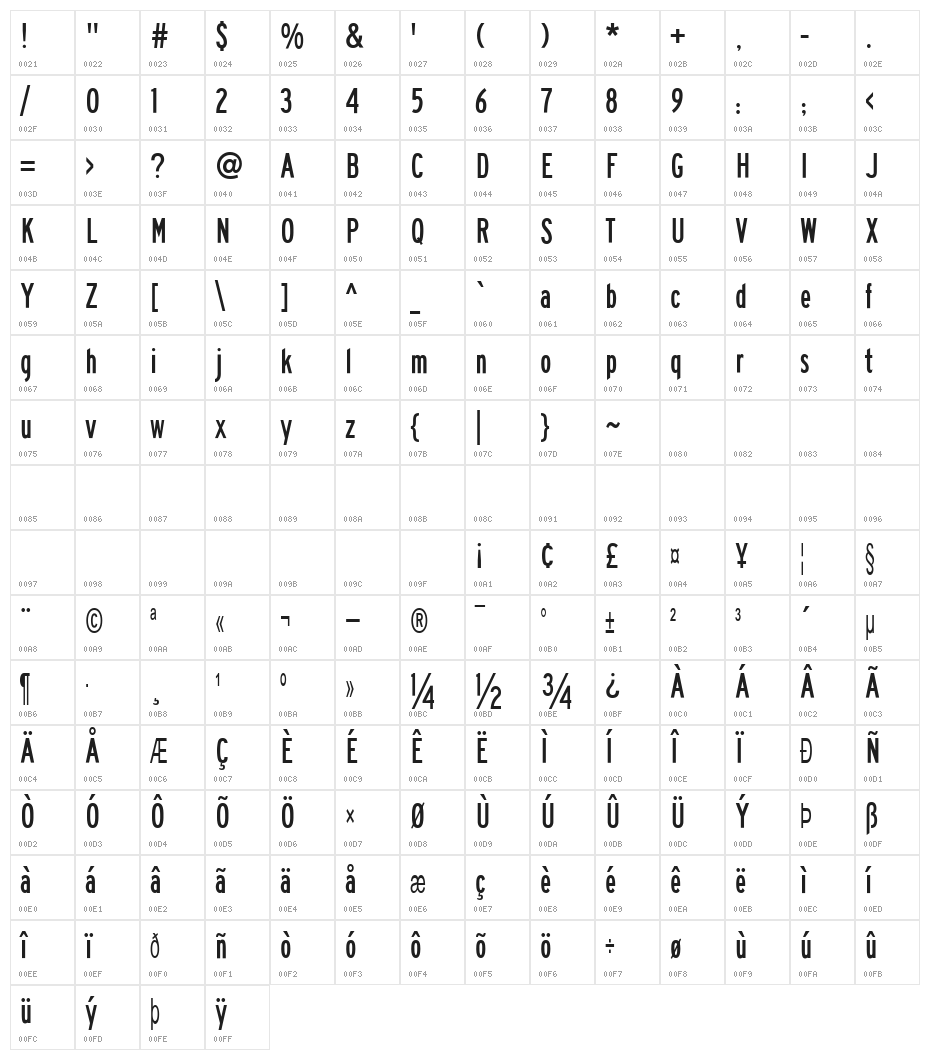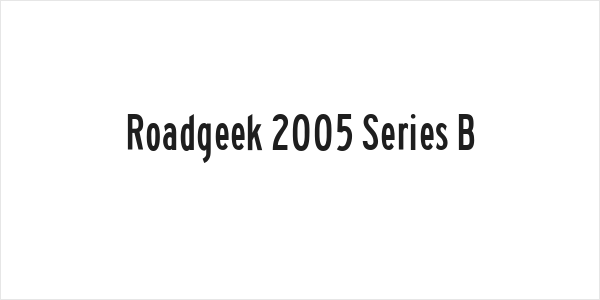
Roadgeek 2005 Series B Font
Roadgeek 2005 Series B Description
This typeface features a clean and straightforward design with a focus on readability. The characters are uniformly structured, offering a balanced and consistent appearance across both uppercase and lowercase letters. The numerals are clear and distinct, making them easily legible. The special characters maintain the same clarity and simplicity, ensuring they integrate seamlessly with the rest of the font. The overall design is functional and practical, suitable for various applications where clarity and legibility are paramount.
| Use Case | Headlines, Signage, Instructional materials |
| Proposed Projects | Ideal for road signage, instructional materials, and any project requiring high readability. |